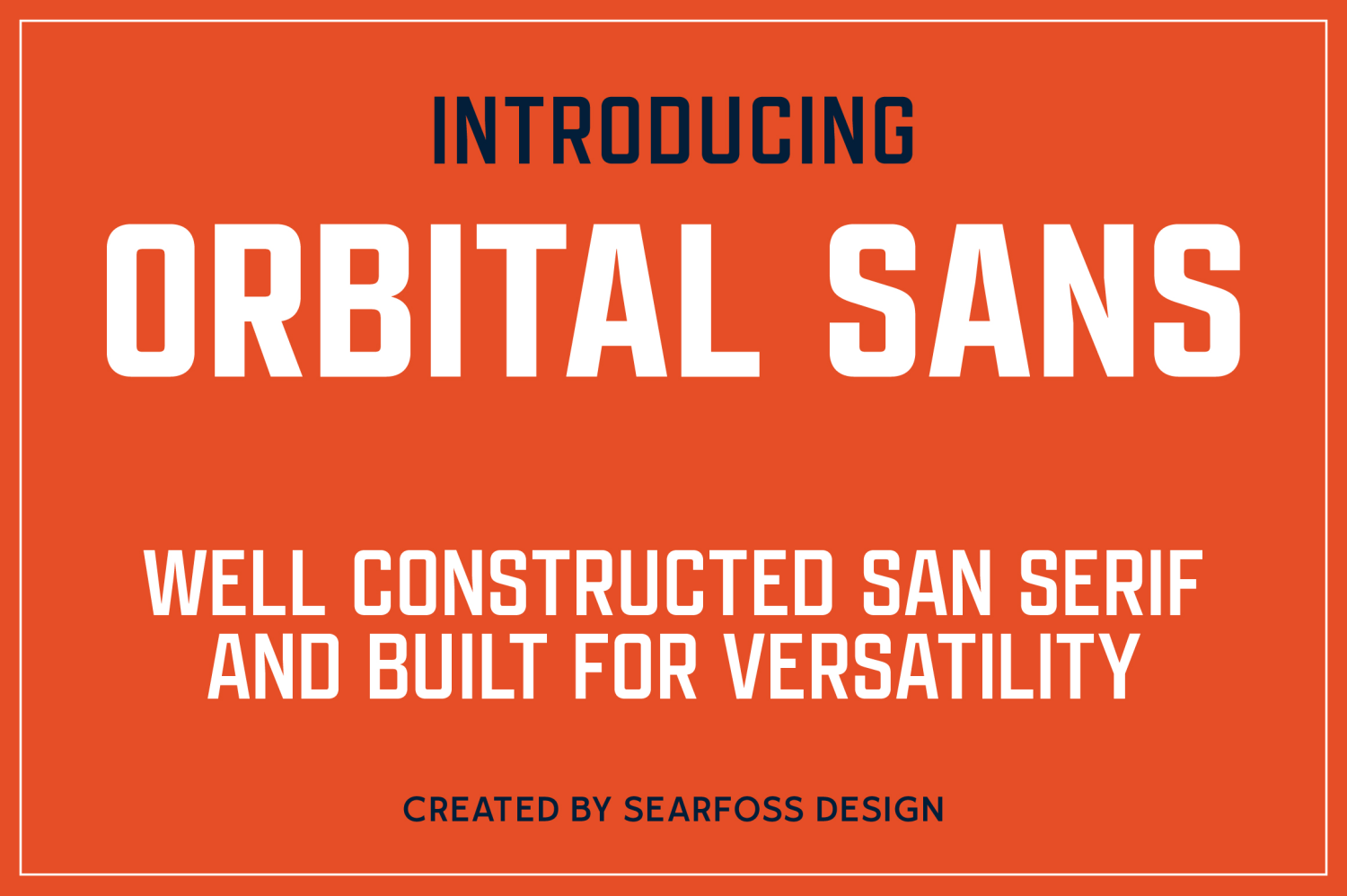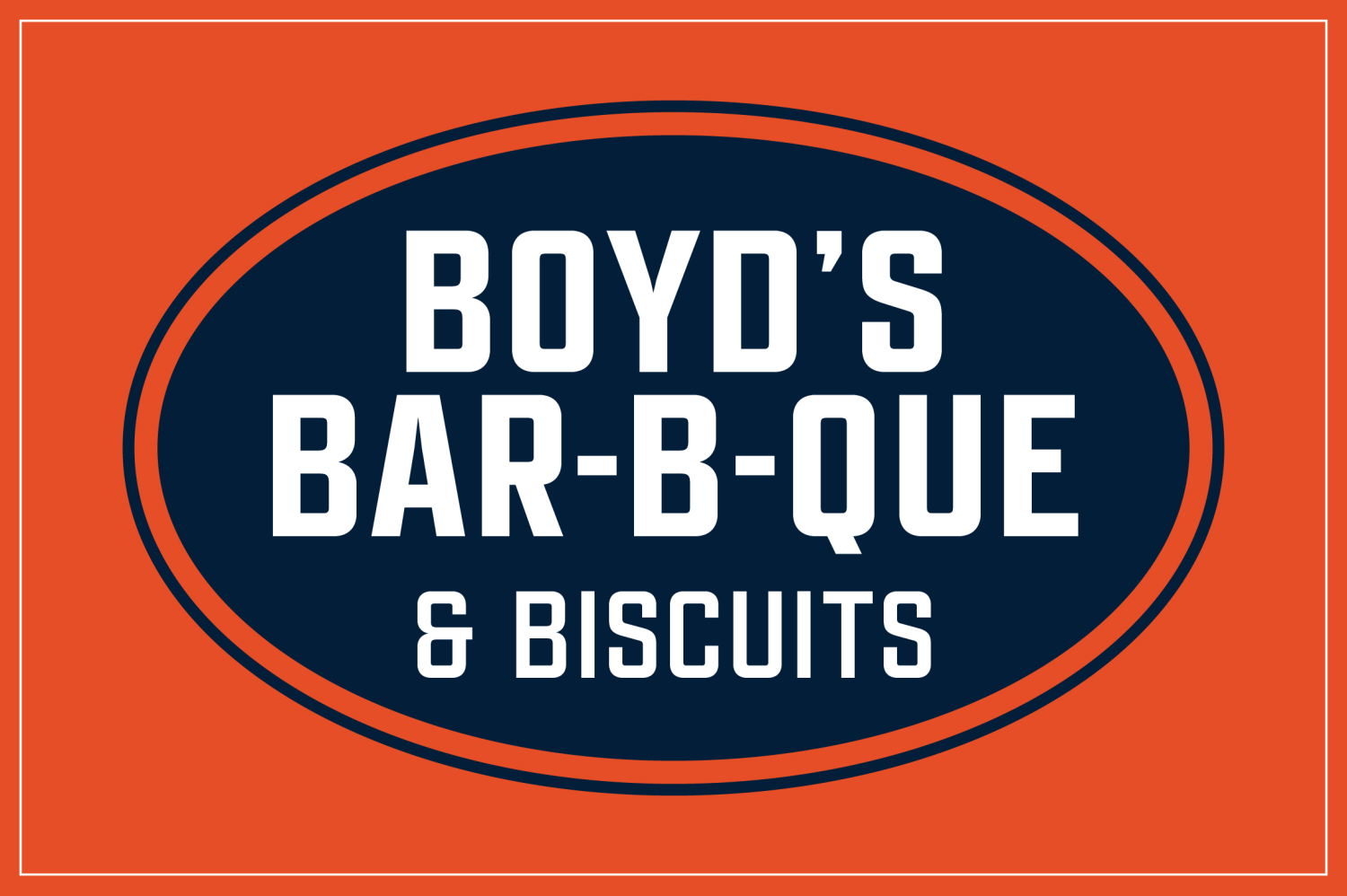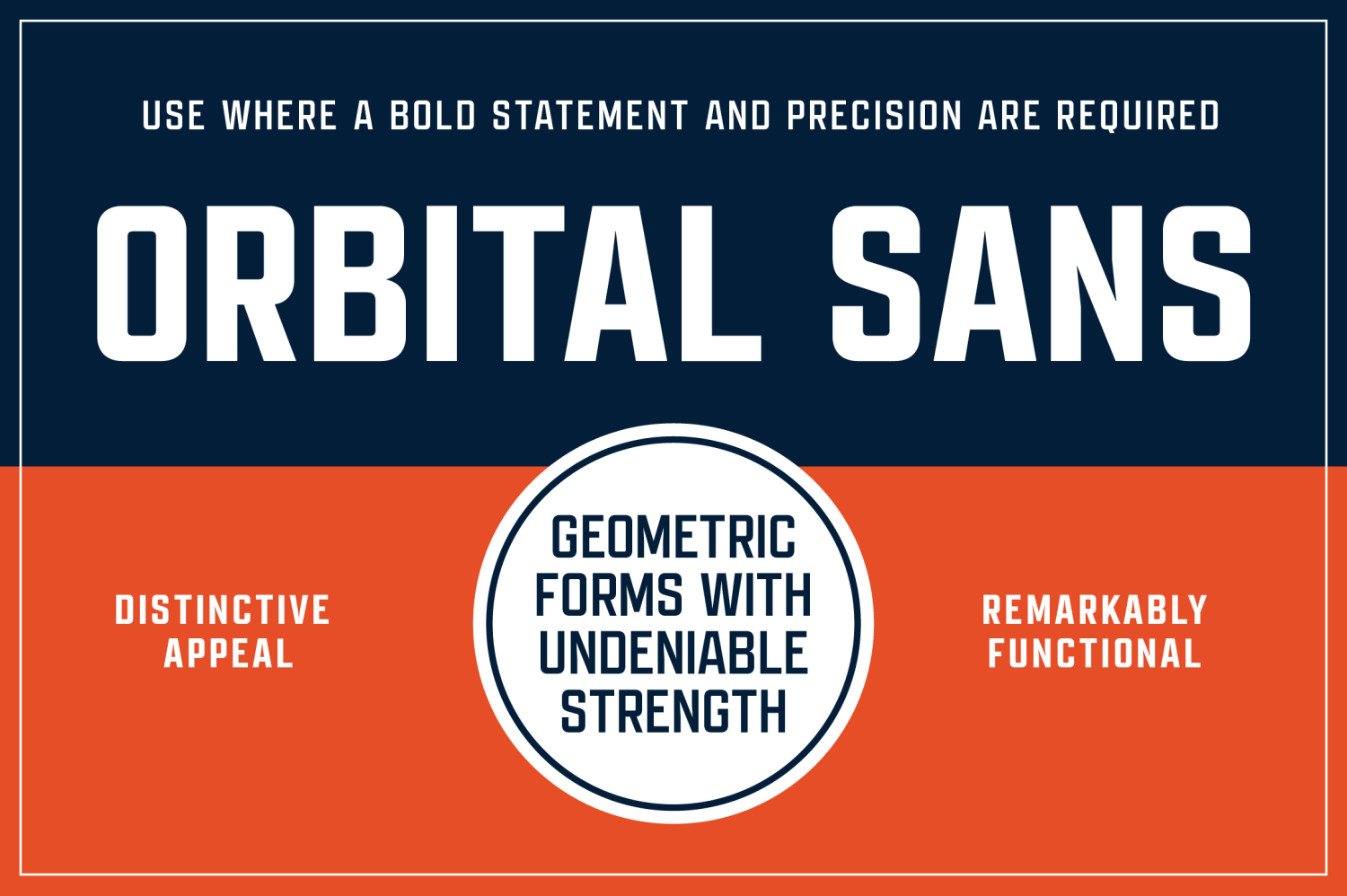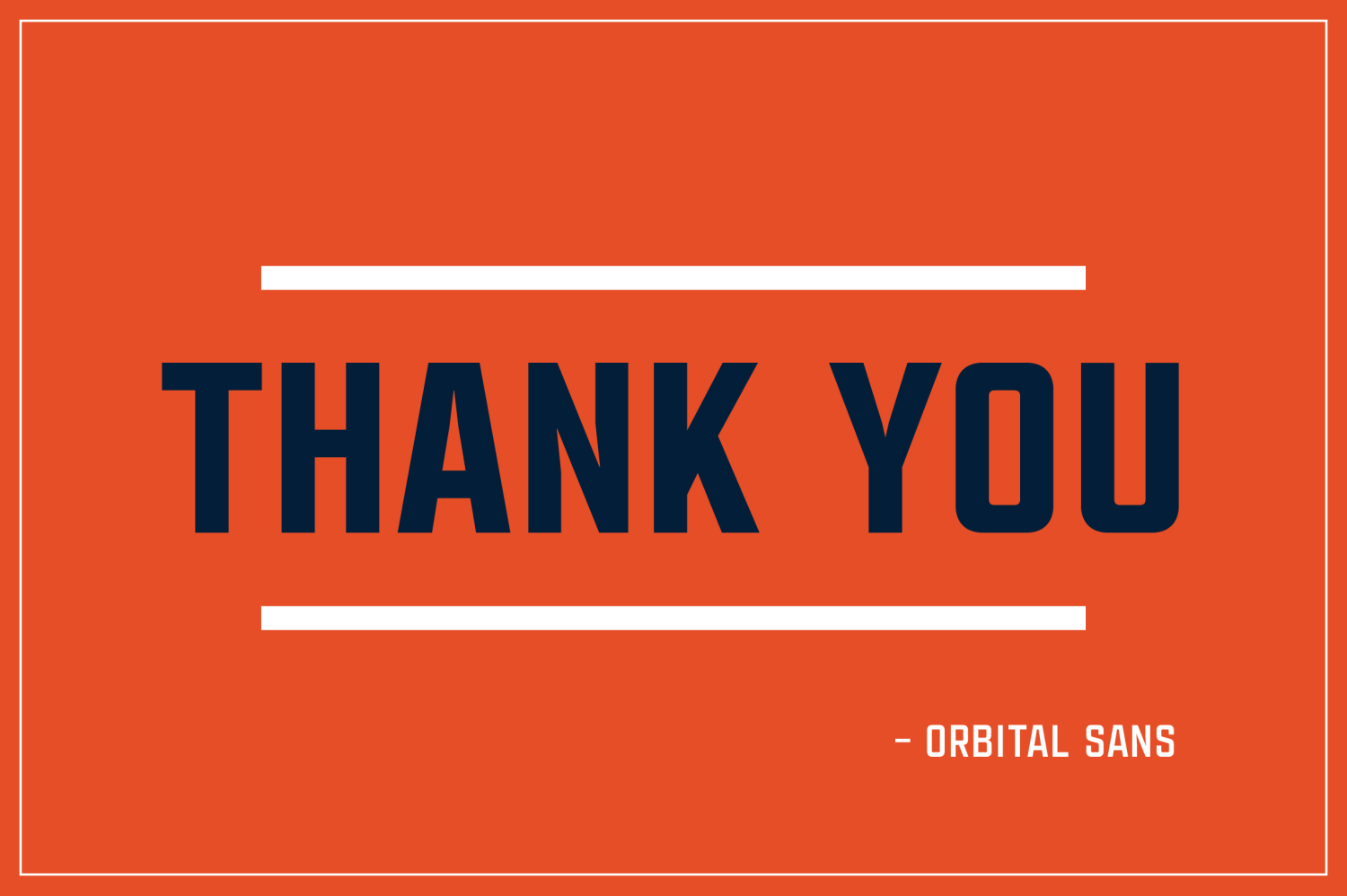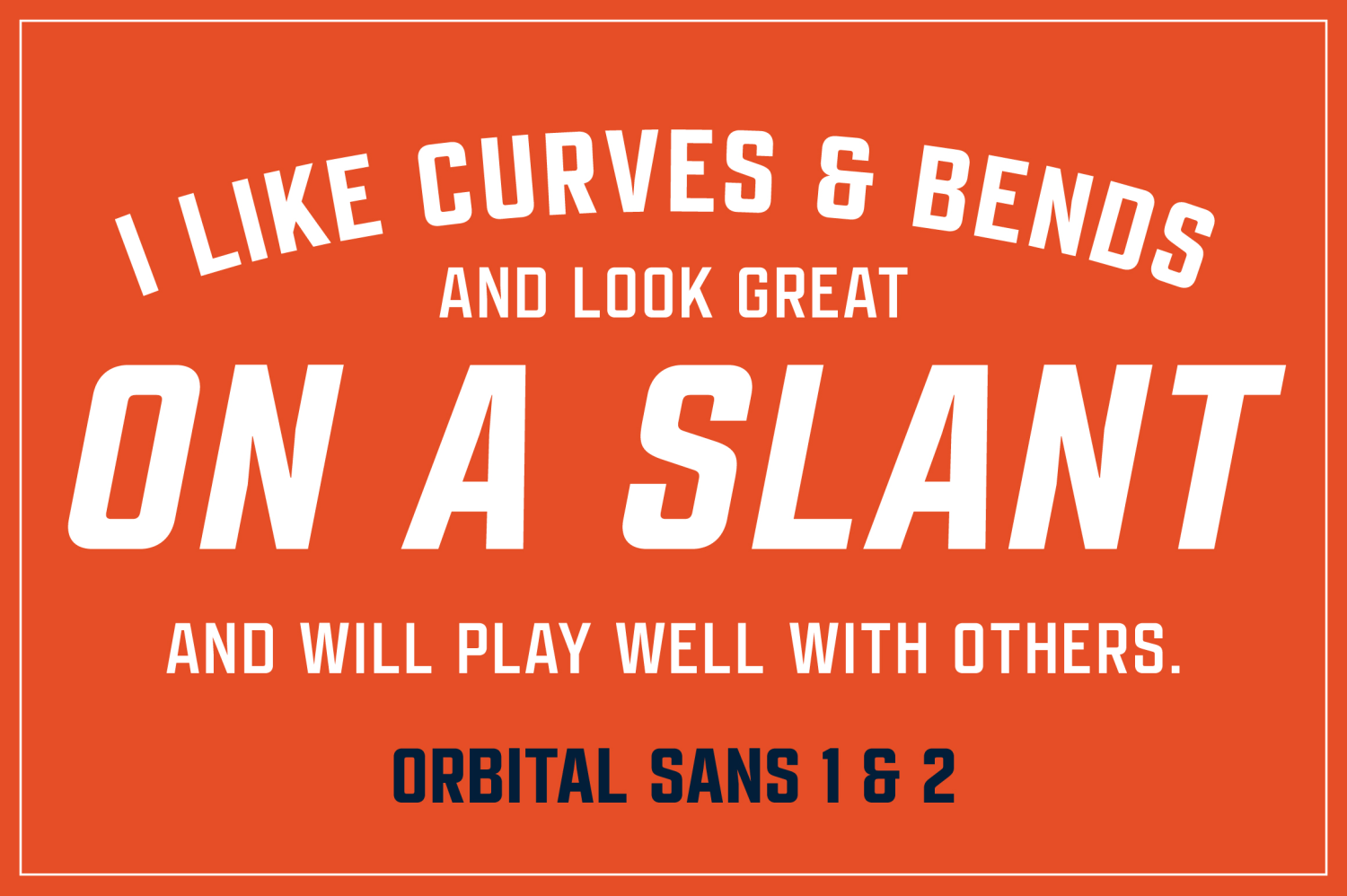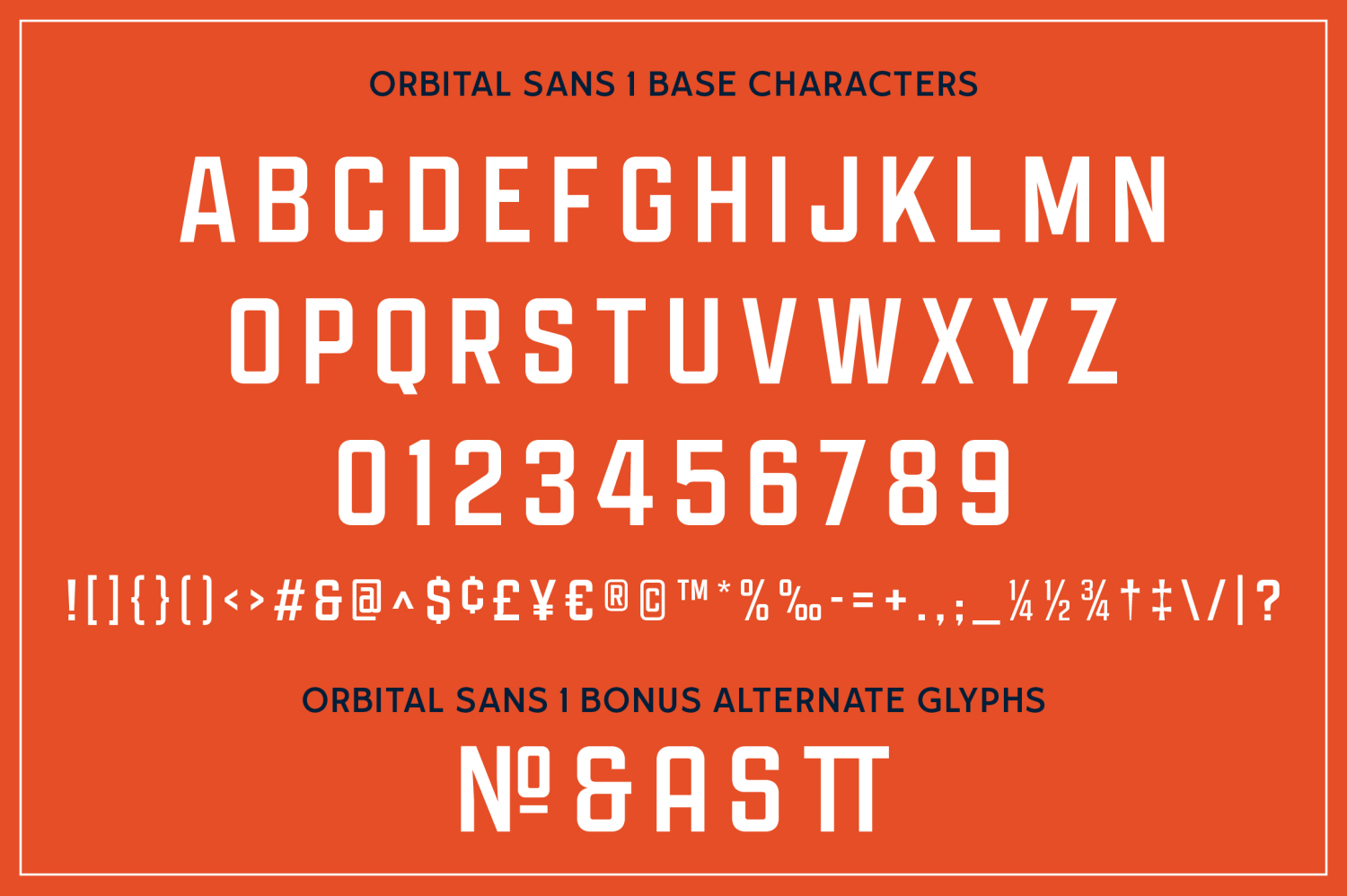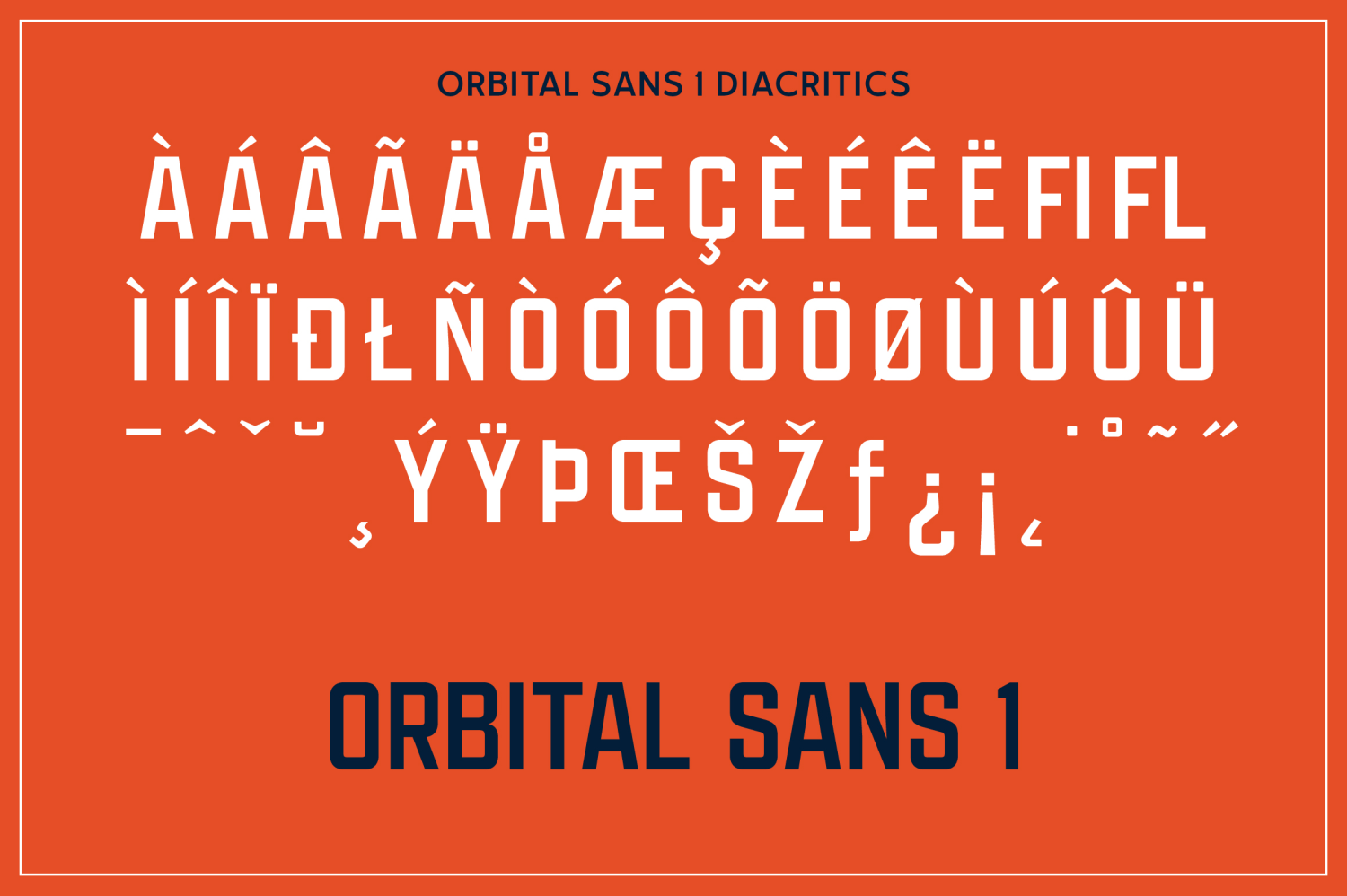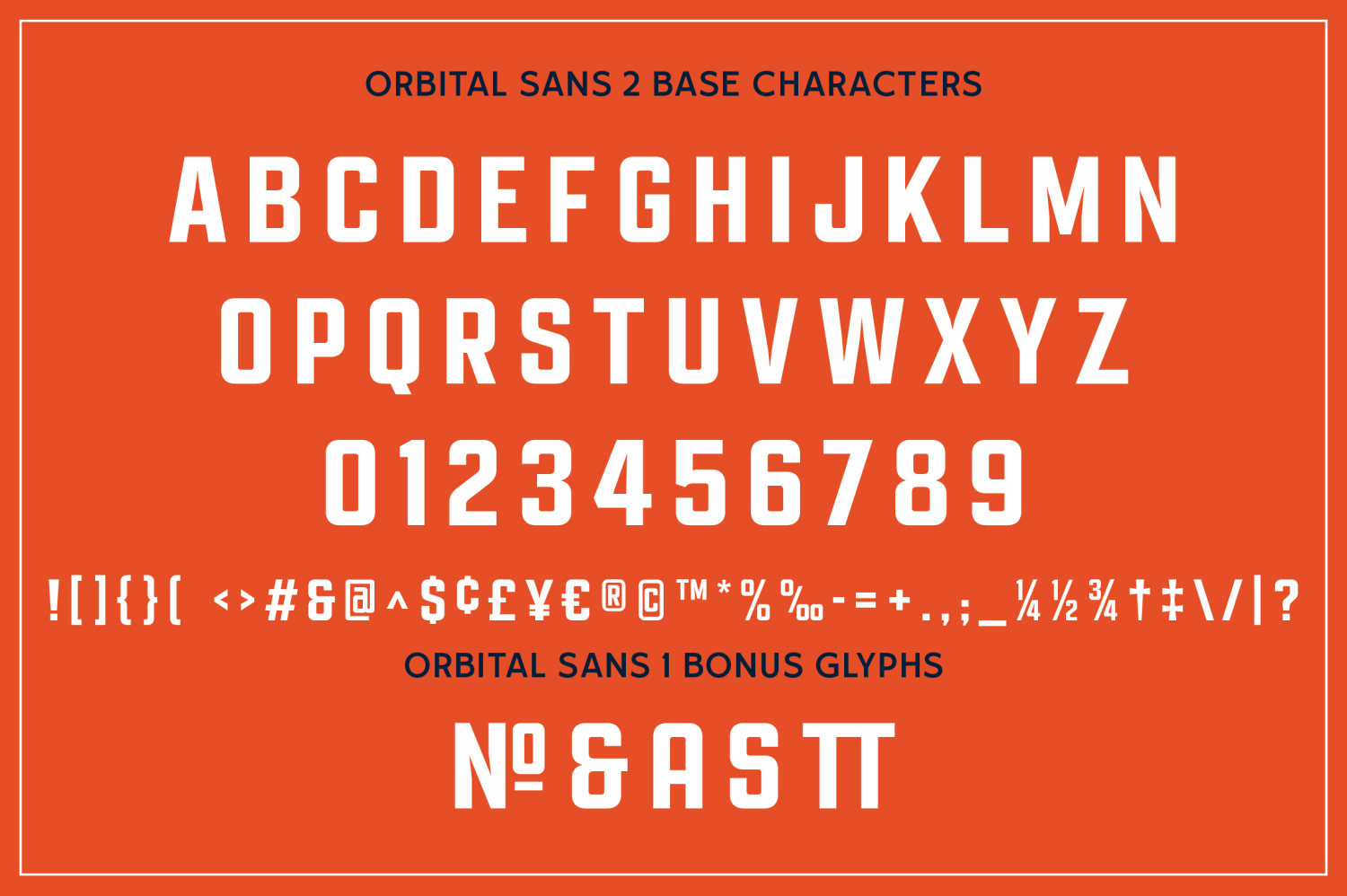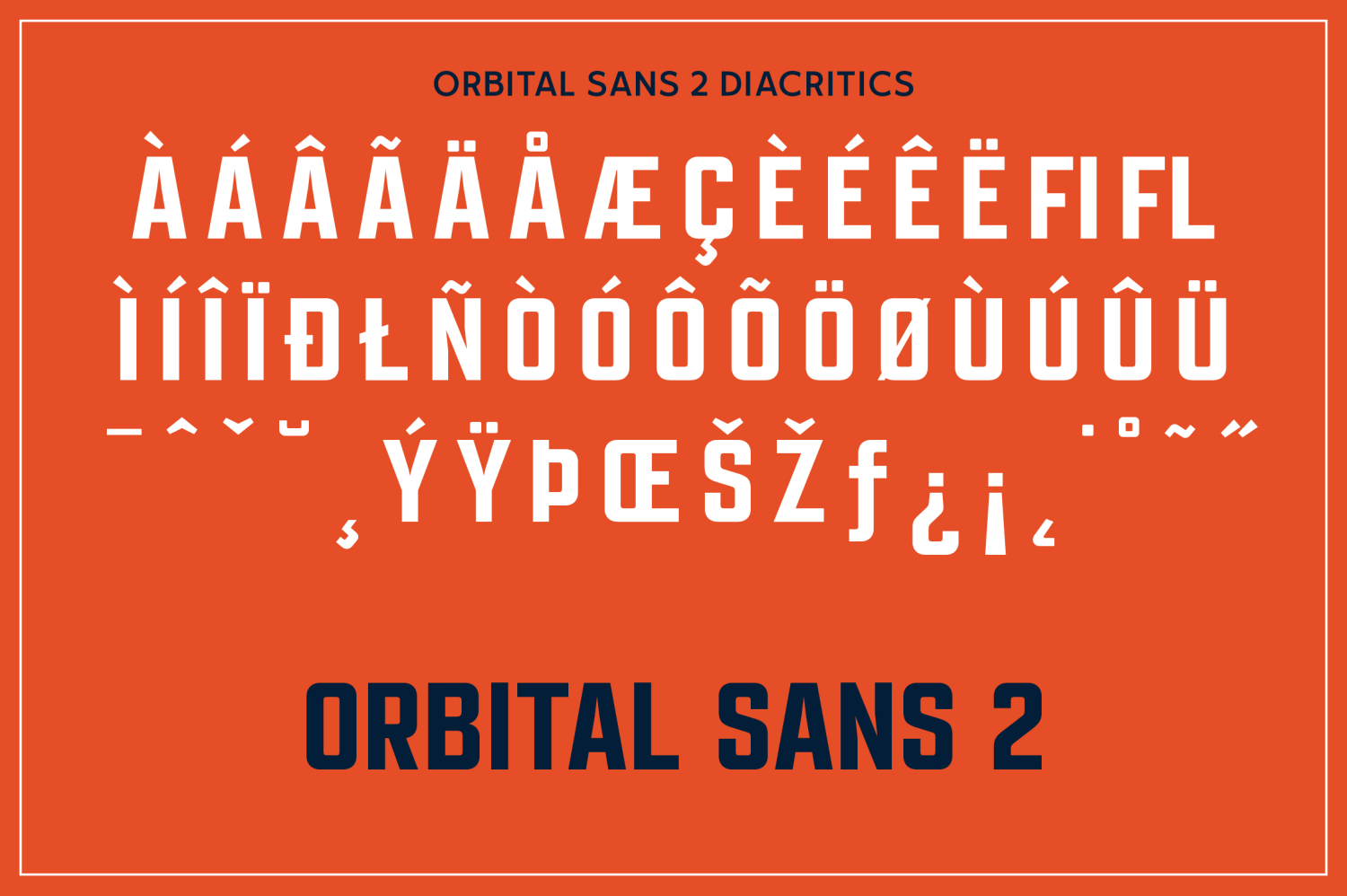
Orbital Sans
Orbital Sans is a bold, condensed display family built to make every word feel solid, direct, and unmistakably confident. Its tall proportions, geometric construction, and softly rounded corners create an industrial character without making the letterforms feel cold or overly mechanical. The result is a commanding all caps typeface that delivers serious visual impact while remaining clean, approachable, and easy to read.
The family includes two complementary styles. Orbital Sans 1 has a slightly narrower, streamlined rhythm, while Orbital Sans 2 brings a broader stance and greater visual density. Use them individually for a consistent typographic voice, or pair them together to create clear hierarchy across headlines, subheads, badges, and supporting details.
Orbital Sans feels right at home in automotive branding, sports graphics, signage, workwear, food and beverage packaging, hospitality identities, posters, merchandise, and editorial headlines. Its condensed structure fits substantial messaging into limited space, while its crisp silhouettes remain strong on curves, angled layouts, emblems, and oversized displays.
Both styles include numerals, punctuation, currency symbols, fractions, extended Latin characters, ligatures, and useful alternate glyphs for added flexibility. Whether you’re creating a rugged garage logo, a bold parking sign, a modern barbecue label, or a powerful campaign headline, Orbital Sans gives your message the strength to stand its ground.
The Orbital Sans font family includes 231 glyphs.